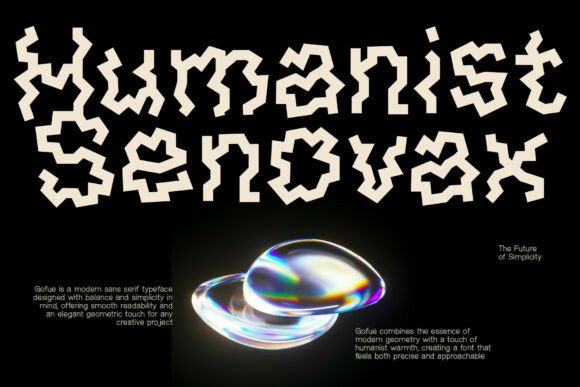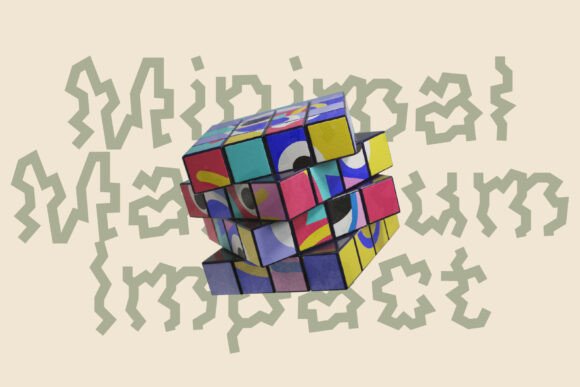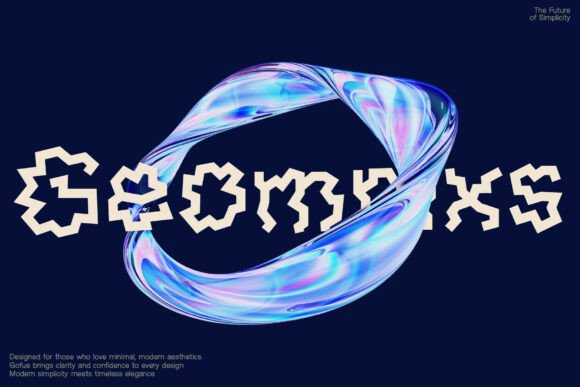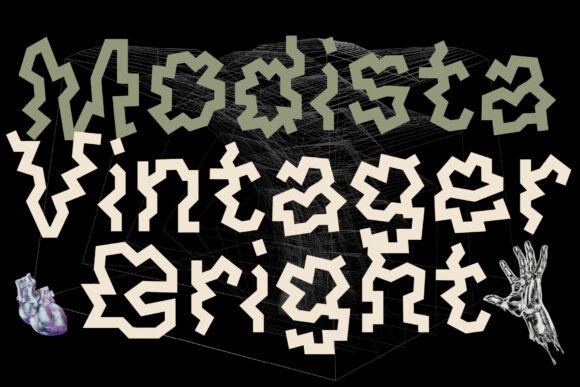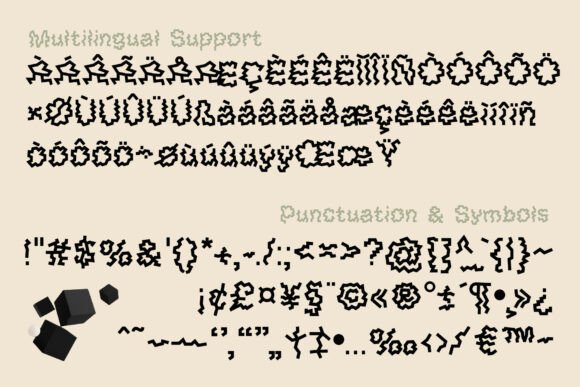
Introducing Gofue Font: The Bold Experimental Display Font for Design Rebels
In the world of typography, there exist fonts that play it safe, adhering to traditional readability standards, and then there are fonts like Gofue that dare to challenge the status quo. Gofue is a bold experimental display font that transforms geometric forms into expressive, abstract letter structures, pushing the boundaries of typography and redefining the concept of visual communication.
The Birth of a Revolutionary Font
Gofue is not just a font; it’s a statement. With its sharp angles, zigzag contours, and symbolic shapes, it embodies modern simplicity fused with abstract creativity. This font is designed for designers who love minimal concepts with a strong visual twist, making it perfect for projects that aim to stand out, provoke curiosity, and embrace a distinctive avant-garde aesthetic.
Unconventional yet Versatile
Gofue works exceptionally well for a variety of design applications, including posters, art direction, fashion branding, album covers, exhibitions, streetwear graphics, and conceptual design projects. Its unique character structures make each letter feel like a graphic element, making the font as much about composition as it is about typography.
Gofue’s design characteristics are what set it apart from traditional fonts. Its sharp angles and zigzag contours give it a bold and edgy feel, while its symbolic shapes add an air of mystery and intrigue. The font’s geometric forms are transformed into expressive, abstract letter structures, making it perfect for designers who want to add a touch of avant-garde to their work.
Gofue is perfect for designers and crafters who want to push the boundaries of typography and visual communication. Whether you’re a graphic designer, art director, or fashion brand owner, Gofue provides a unique opportunity to add a distinctive touch to your work. Its versatility and boldness make it an excellent choice for a wide range of design applications.
Key Features of Gofue Font
- Bold and Experimental: Gofue is a bold experimental display font that dares to challenge traditional typography standards.
- Geometric Forms: The font transforms geometric forms into expressive, abstract letter structures.
- Sharp Angles and Zigzag Contours: Gofue’s sharp angles and zigzag contours give it a bold and edgy feel.
- Symbolic Shapes: The font’s symbolic shapes add an air of mystery and intrigue.
- Perfect for Avant-Garde Designs: Gofue is perfect for projects that aim to stand out, provoke curiosity, and embrace a distinctive avant-garde aesthetic.
Tips for Using Gofue Font
To get the most out of Gofue, here are some tips for using the font:
- Use it Sparingly: Gofue is a bold font, so use it sparingly to make a statement.
- Experiment with Composition: The font’s unique character structures make it perfect for experimenting with composition.
- Pair it with Simple Backgrounds: Gofue works best with simple backgrounds that allow the font to take center stage.
- Play with Colors: The font’s boldness makes it perfect for playing with colors and adding a pop of color to your design.
Gofue is a game-changing font that dares to challenge traditional typography standards. Its bold and experimental design makes it perfect for designers and crafters who want to push the boundaries of visual communication. With its sharp angles, zigzag contours, and symbolic shapes, Gofue embodies modern simplicity fused with abstract creativity. Whether you’re a graphic designer, art director, or fashion brand owner, Gofue provides a unique opportunity to add a distinctive touch to your work.
So, if you’re ready to take your designs to the next level and make a statement, Gofue is the perfect font for you. Its versatility, boldness, and avant-garde aesthetic make it an excellent choice for a wide range of design applications. Get ready to revolutionize your typography and take your designs to new heights with Gofue.